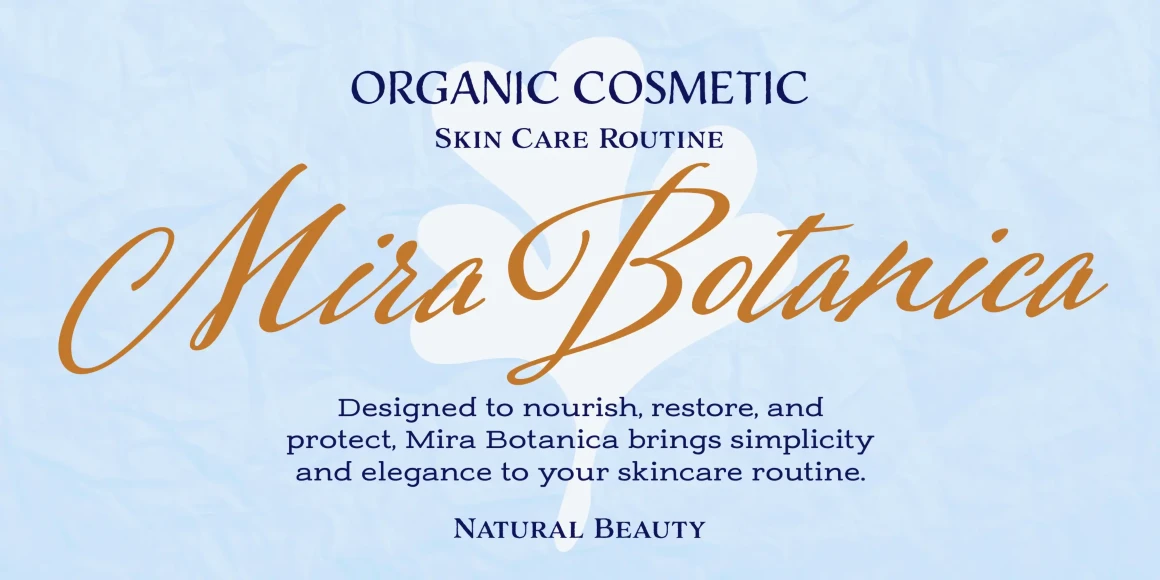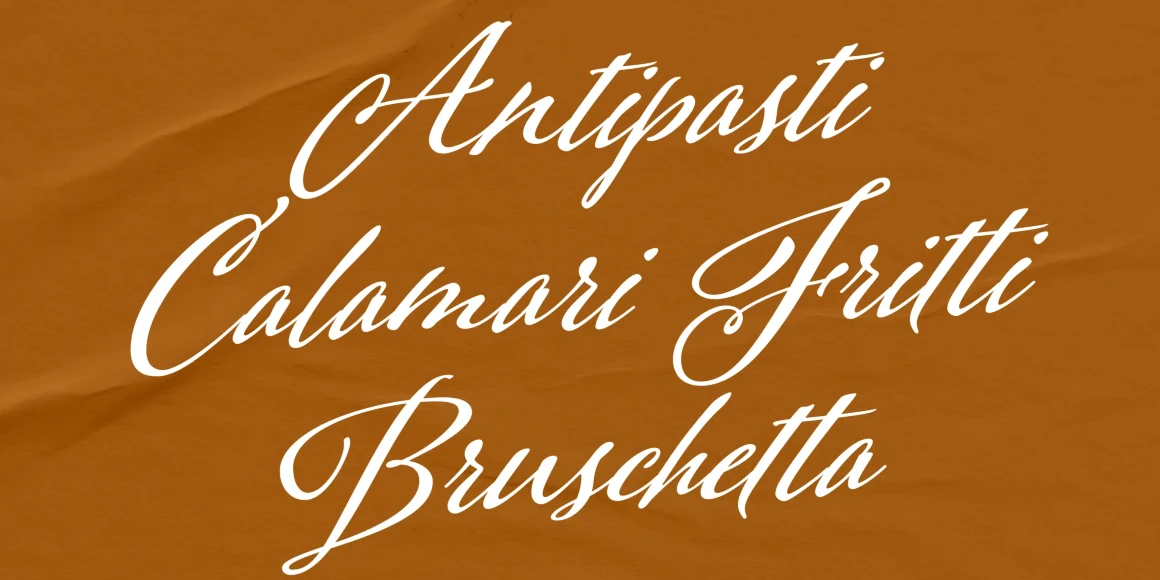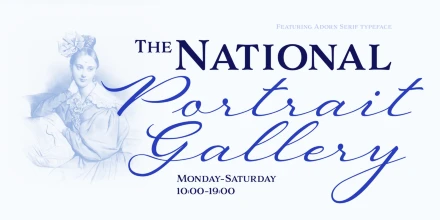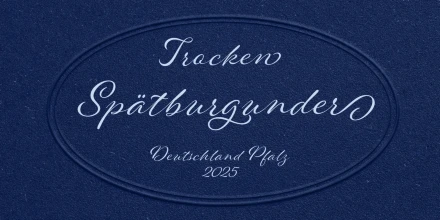
Adorn Bouquet Regular
Adorn
What can be more lovely than a wedding, an invitation or a gift from the heart? One whose presentation uses the warm and welcoming family of typefaces, Adorn. With a modern and sometimes quirky twist on the staid, almost corporate look of formal invitations, this family of hand lettered typefaces arms designers with a breathtakingly large number of fonts that work harmoniously, despite the distinctiveness of each. Adorn offers seven display fonts, four script designs, monograms, ornaments, illustrations, banners, frames, and catchwords.
OpenType Features
• Common Ligatures
• Stylistic Sets
• Stylistic Alternates
• Swashes
• Titling Capitals